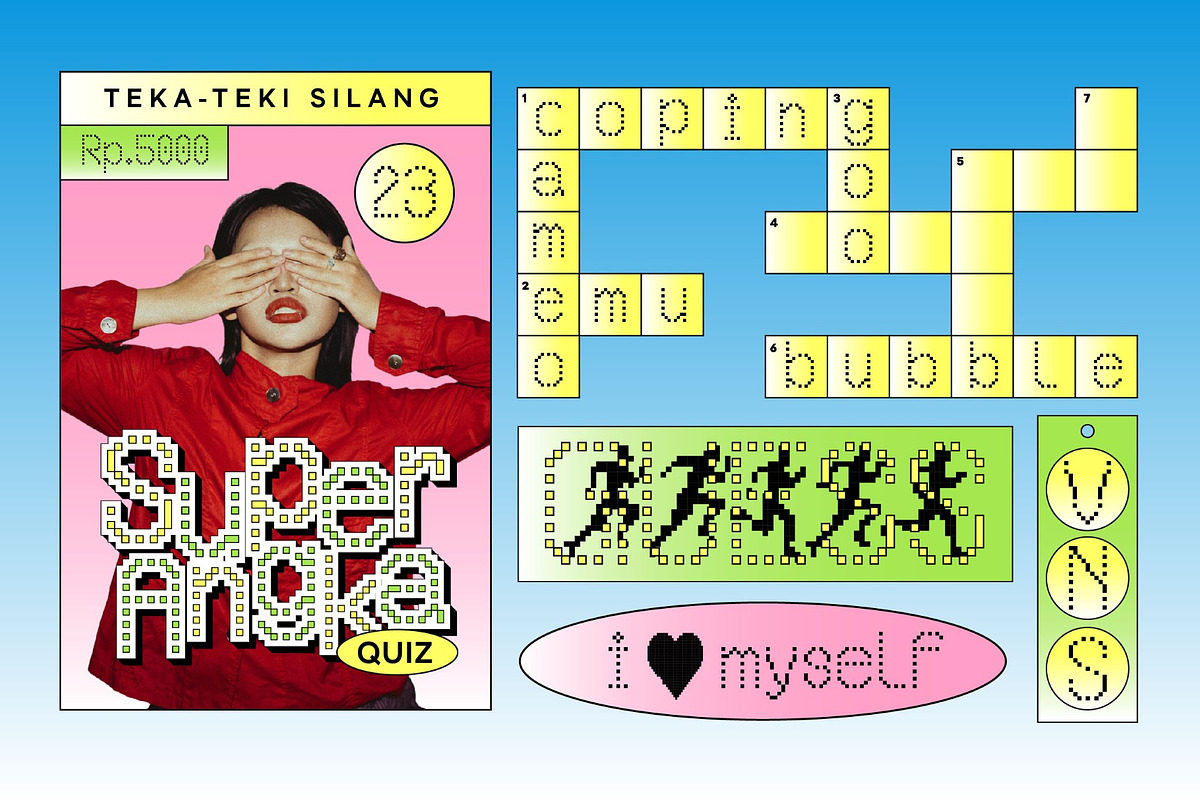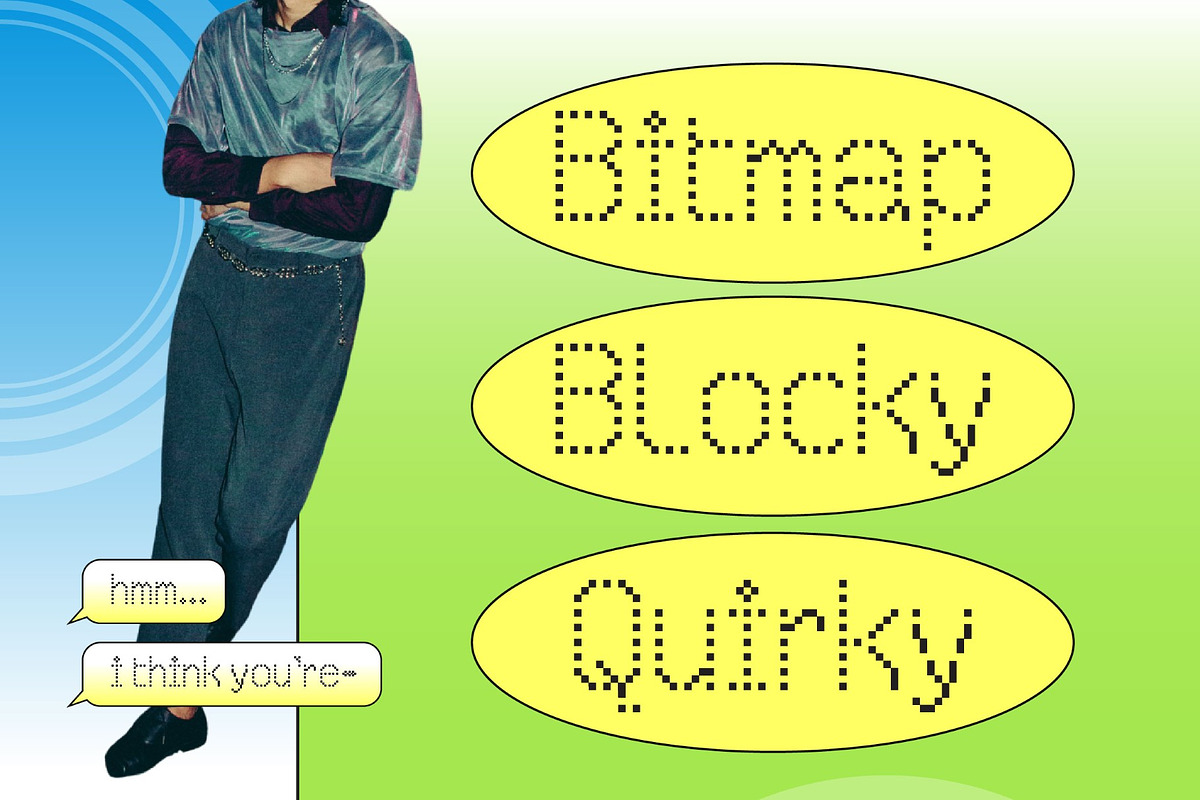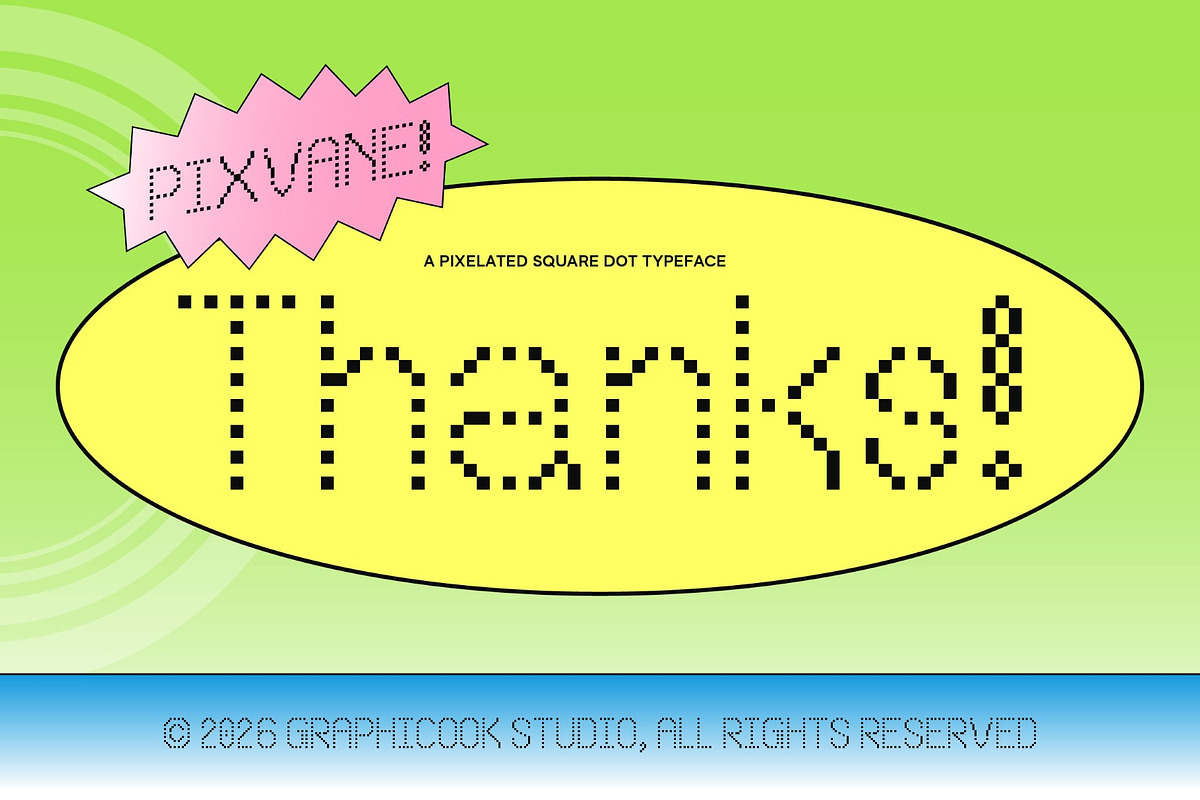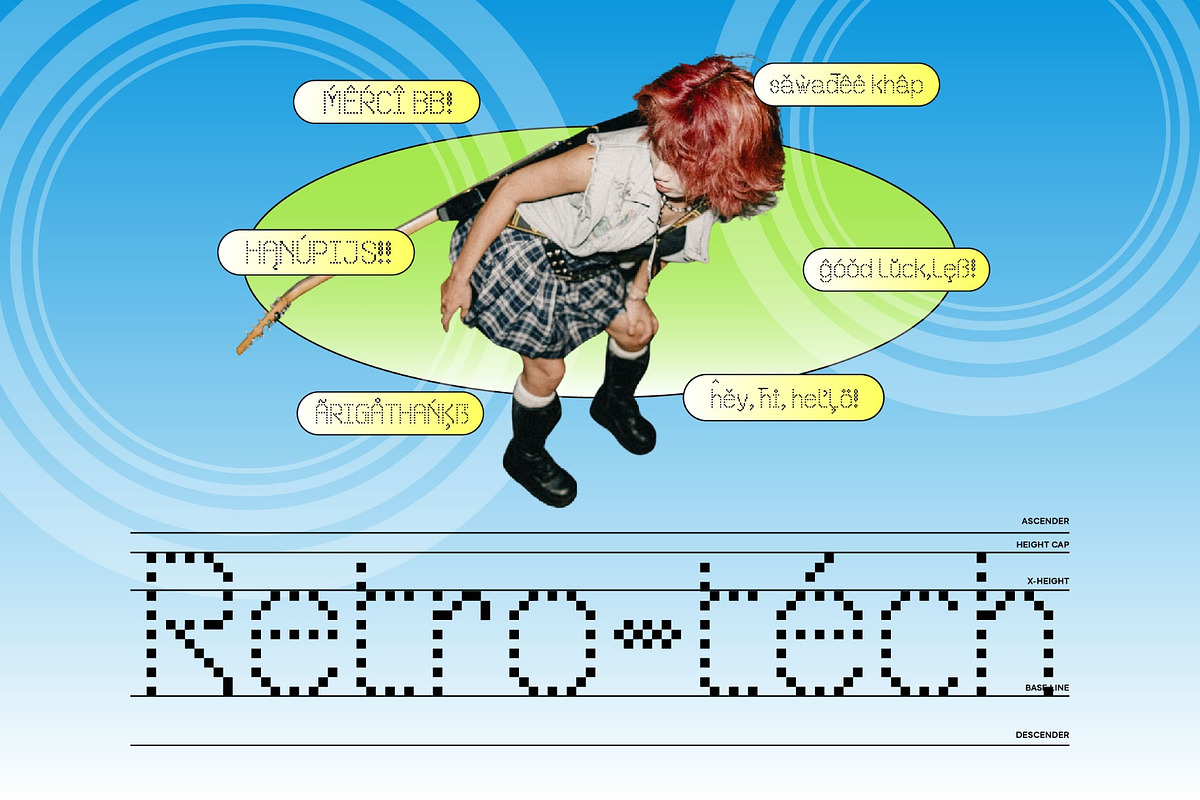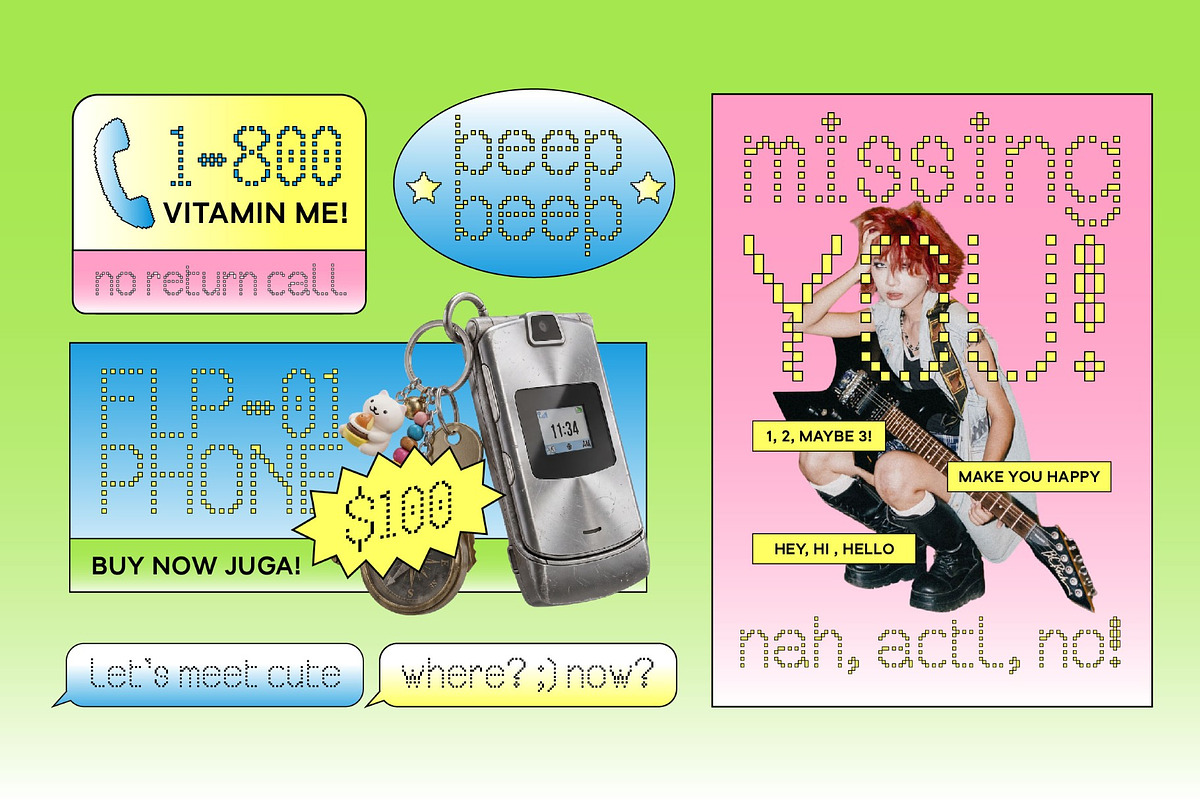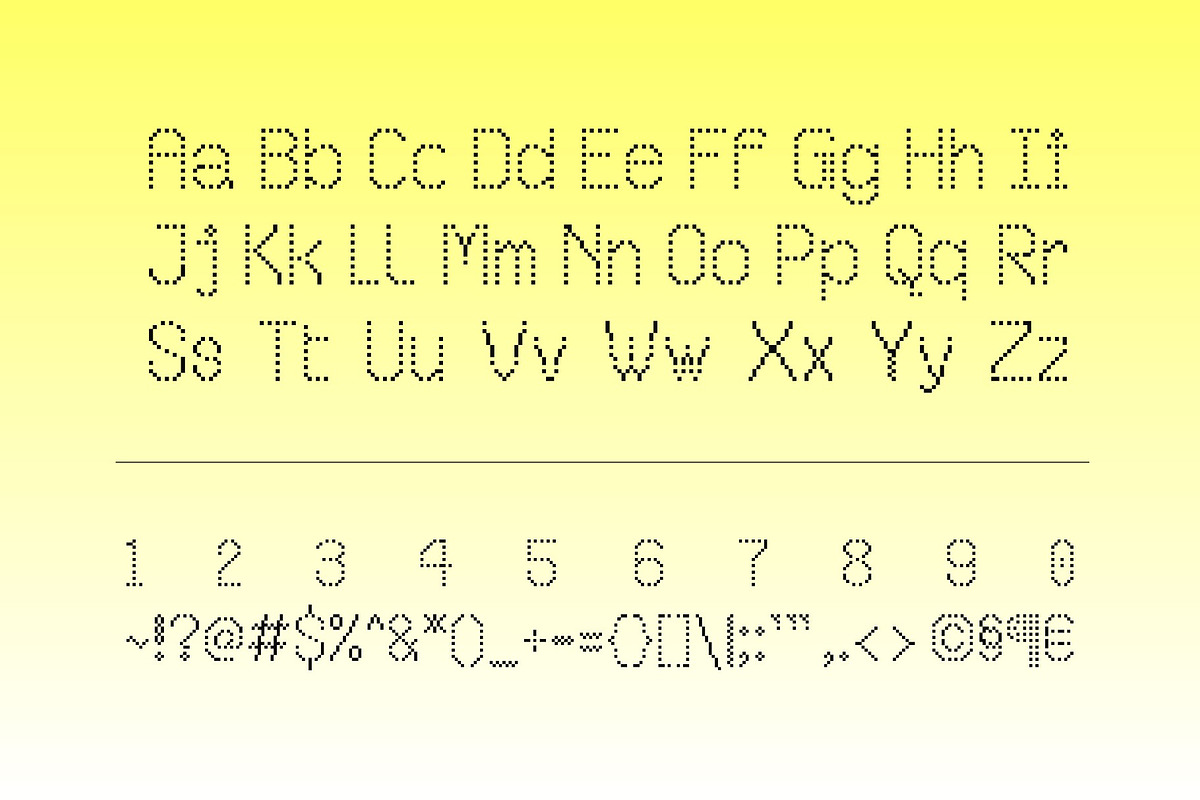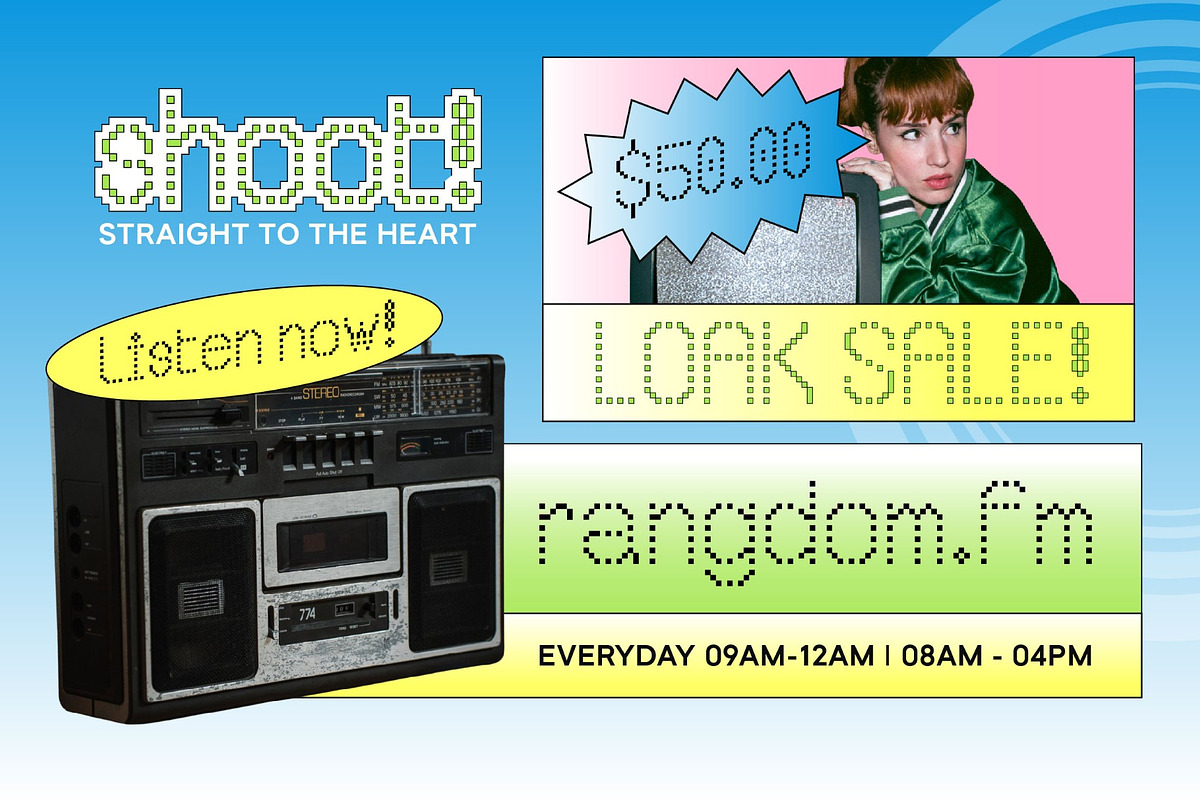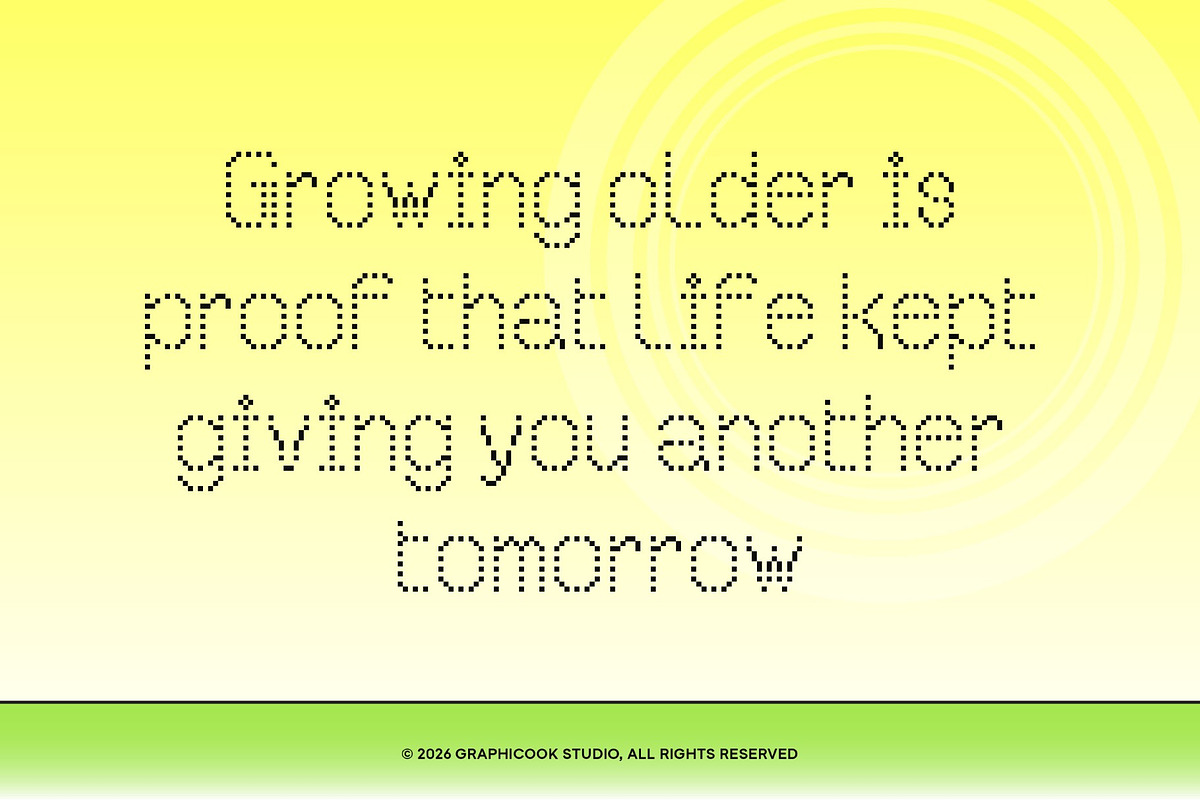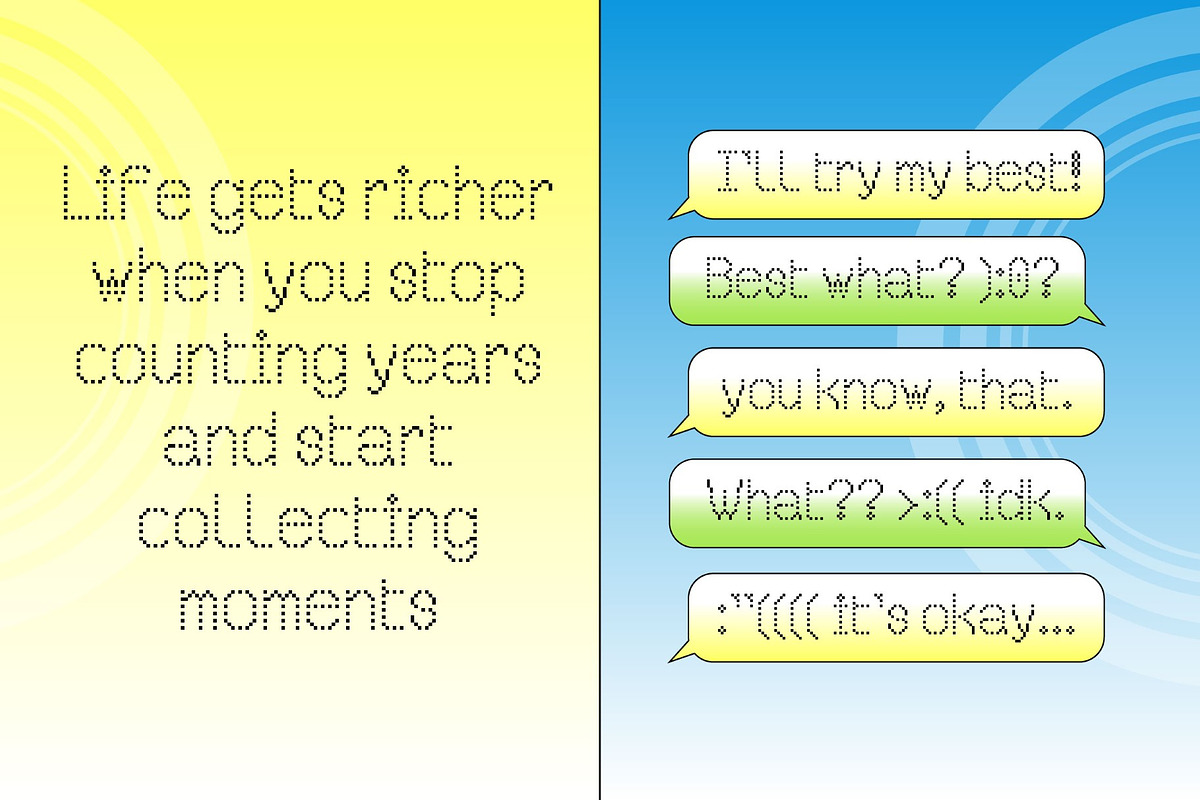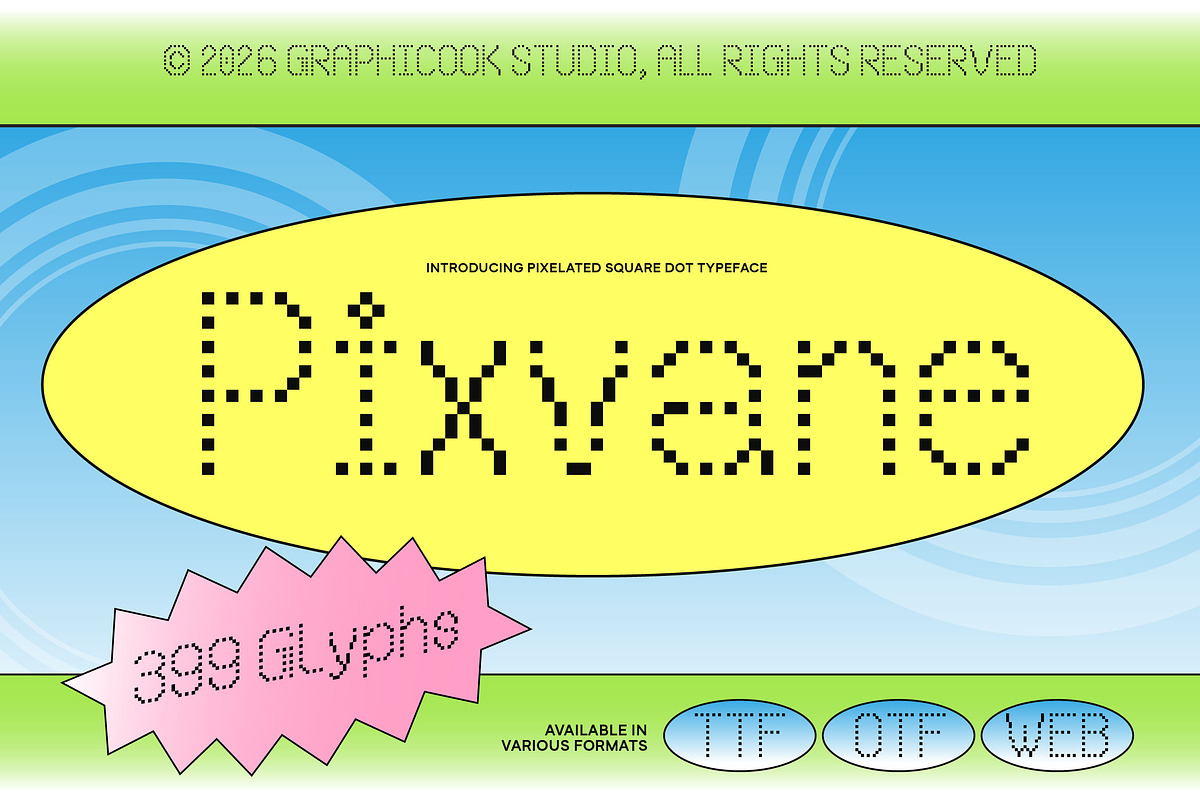
Pixvane
Pixvane is a playful pixel display typeface built from crisp square dots, giving it a charming retro-digital and arcade-inspired character. Its pixelated construction creates a simple yet distinctive appearance, making typography feel like it comes straight from a classic digital screen or vintage game interface.
It is perfect for headlines, logotypes, magazines, packaging, quotes, movies, games, cover albums, book covers, and flyers, it's a perfect solution for creating eye-catching designs that stand out in any context.